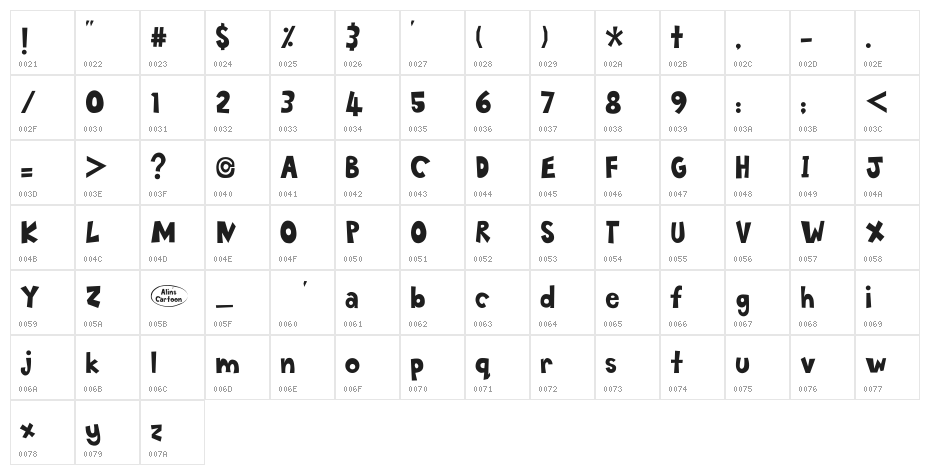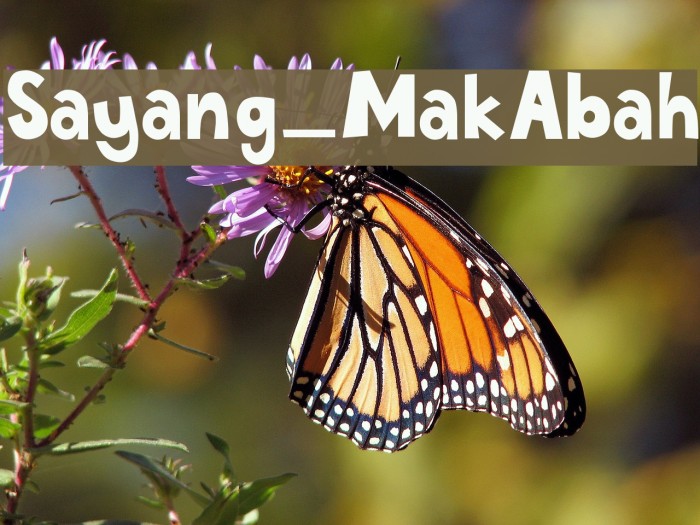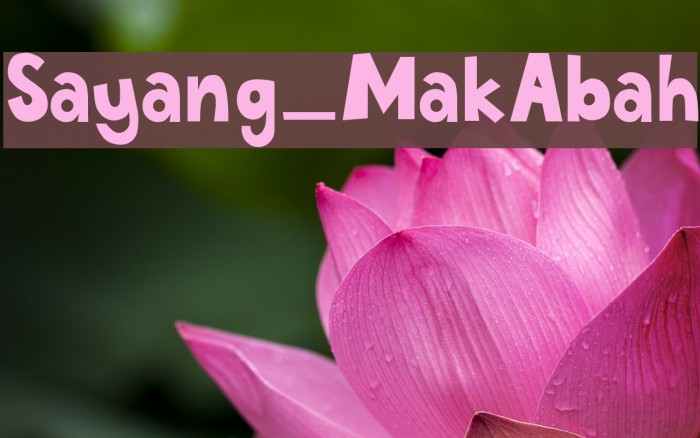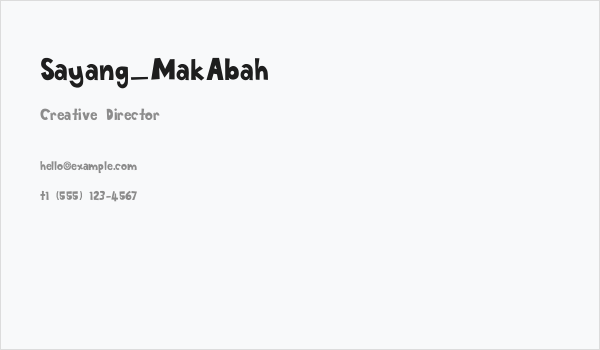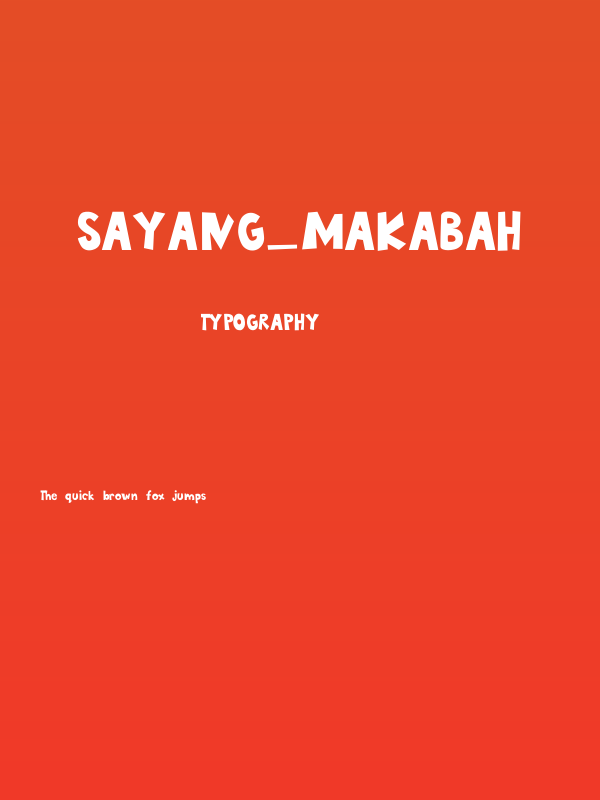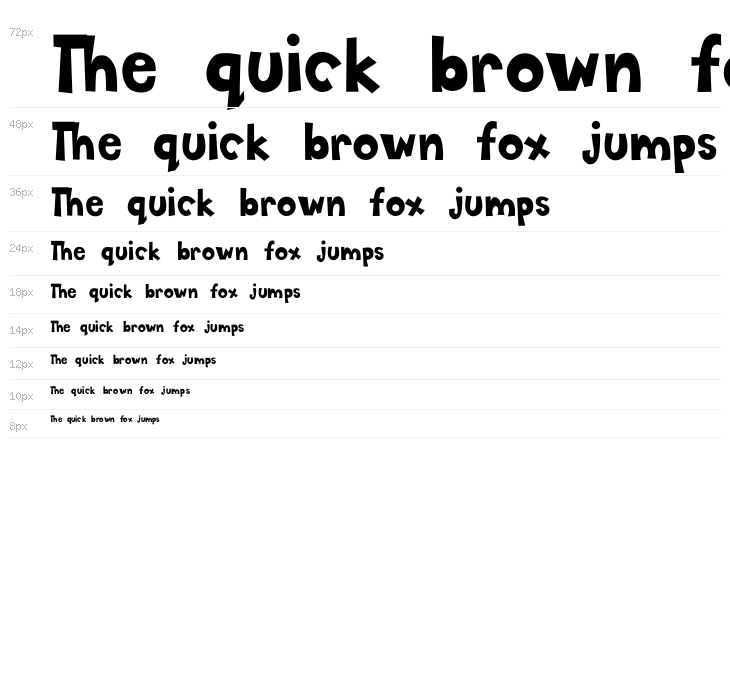
Sayang_MakAbah Font
Sayang_MakAbah Description
This font features a playful and whimsical style, characterized by its bold and irregular letterforms. The uppercase letters are particularly dynamic, with varying angles and curves that give a sense of movement and energy. The lowercase letters maintain this playful aesthetic, with a slightly more subdued approach. The numbers and special characters follow suit, ensuring a cohesive look throughout. This font's unique style makes it stand out, offering a fun and informal vibe that can add character to any project.